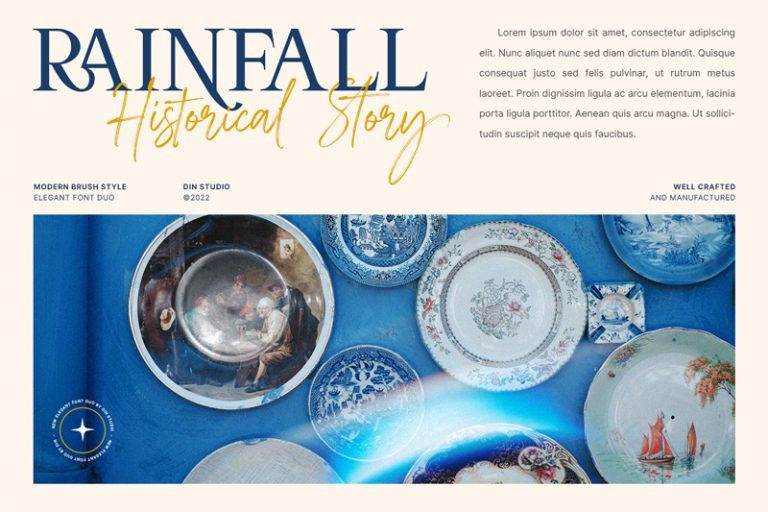
Modern Brush Style Font
Modern Brush Style Font is a font duo combinations of serif and script font to express modern, elegant impressions in your designs. The serif font is characterized by scratches or hooks connecting the letters. On the other hand, script font is designed in brush styles of which letters are interconnected looking similar to a curve writing. You can use this font mixture as a beautiful set or separately as their own lovely characters. Additionally, this font duo has some unique features to enable you to maximize your designs.